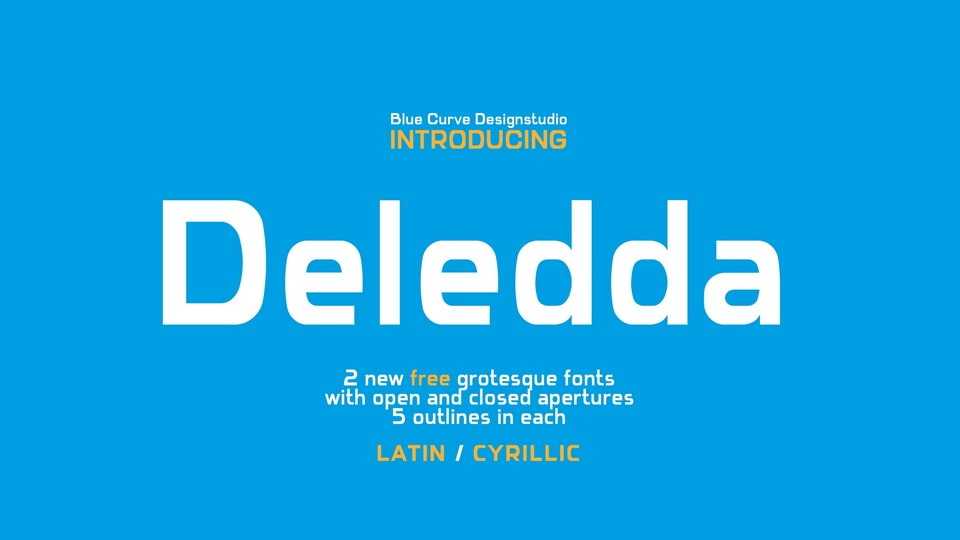
Download Deledda font, a modern monospaced grotesque typeface with smooth curves, characterized by presence of two fonts with open and closed aperture glyphs.
Designer: Dimitri Antonov